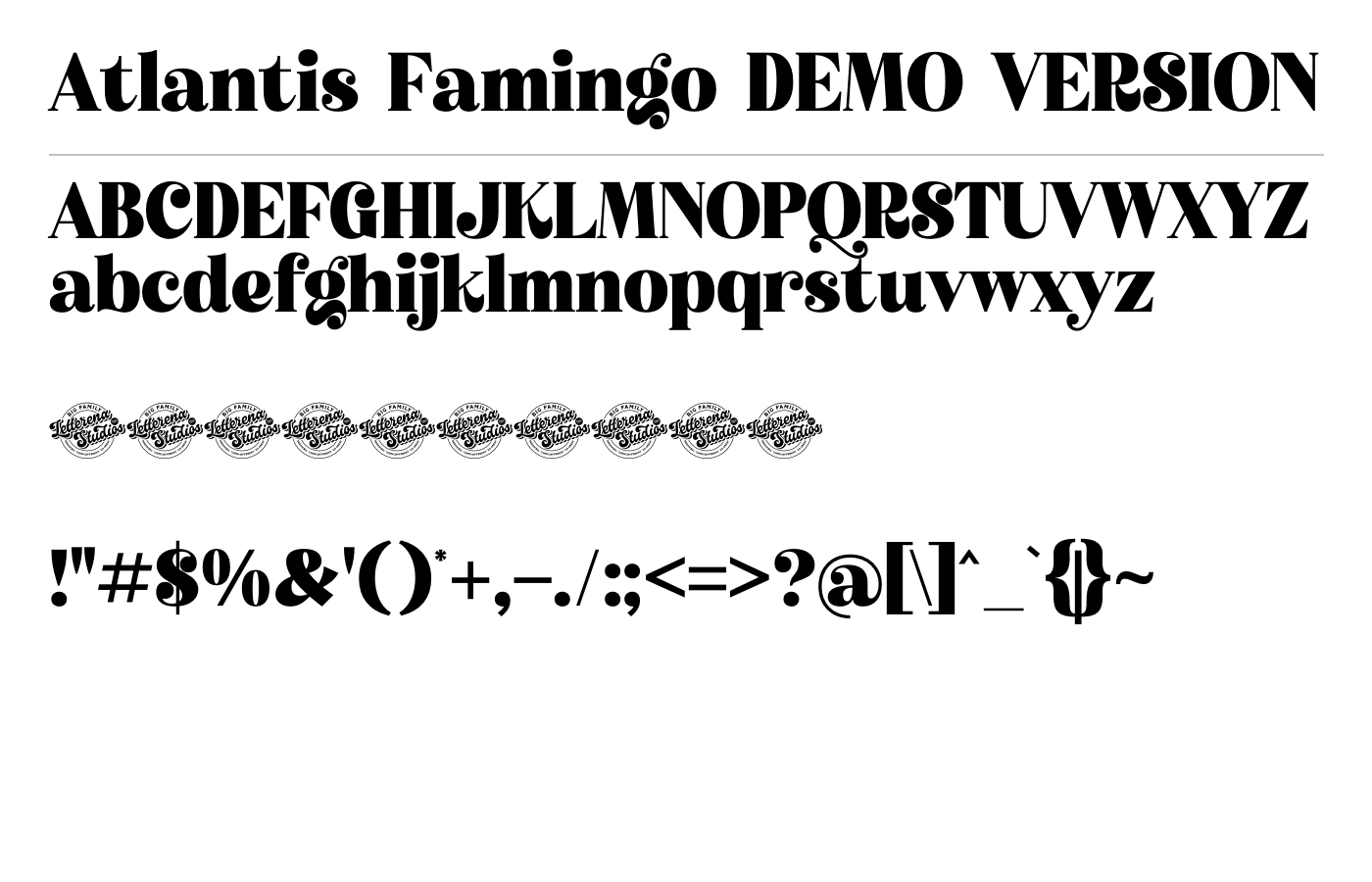
Atlantis Famingo DEMO VERSION is a bold serif font with strong contrast between thick and thin strokes, featuring elegant bracketed serifs and distinctive decorative flourishes on select letters. Its tall x-height and stylized letterforms give it a classic yet playful personality, making it ideal for eye-catching headlines, logos, and branding that require a mix of sophistication and uniqueness. This font works well in editorial, fashion, and luxury contexts where a memorable and refined impression is key.
Atlantis Famingo DEMO VERSION Font
About Atlantis Famingo DEMO VERSION Font